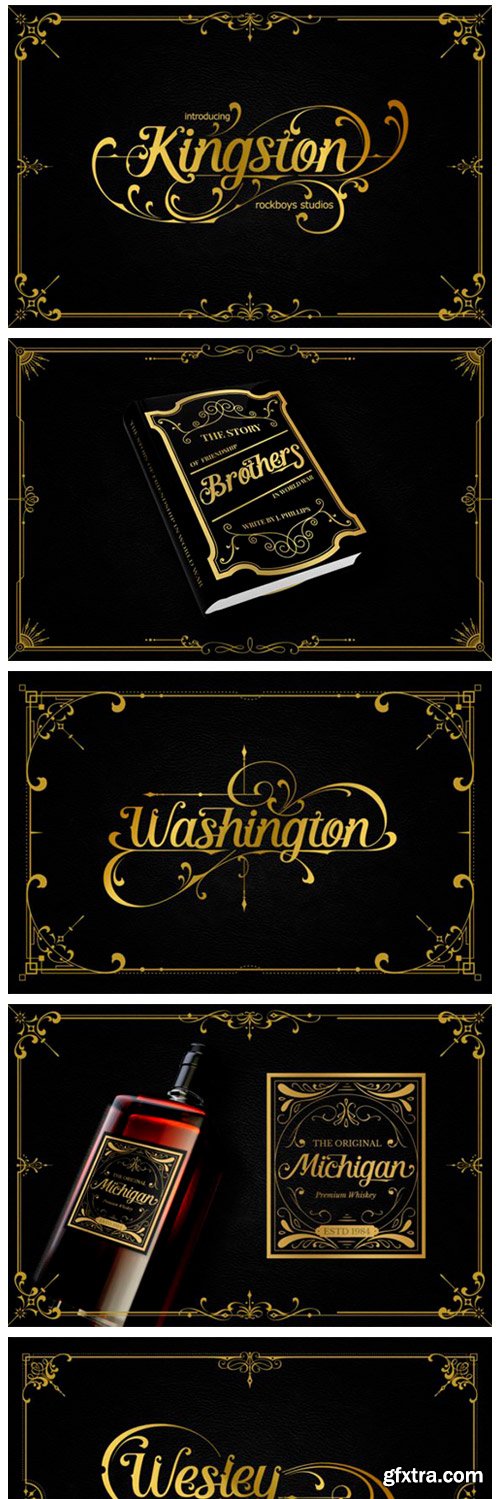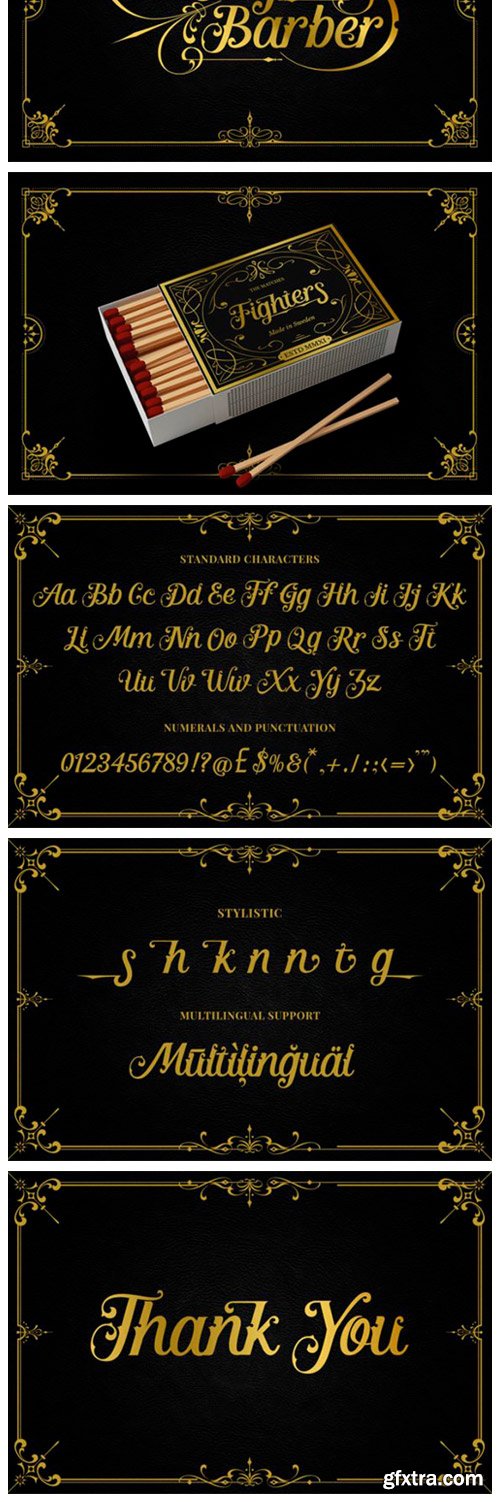
Kingston Font
Kingston is a unique handwritten font. It includes elegant swashes which can be used to give a luxurious look to your designs. It can be used for various purposes such as logos, wedding invitations, headings, t-shirts, letterhead, signage, labels, news, posters, badges and so much more.